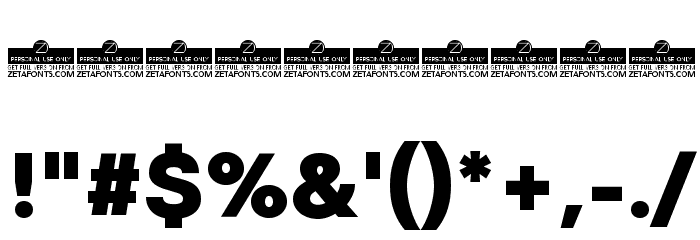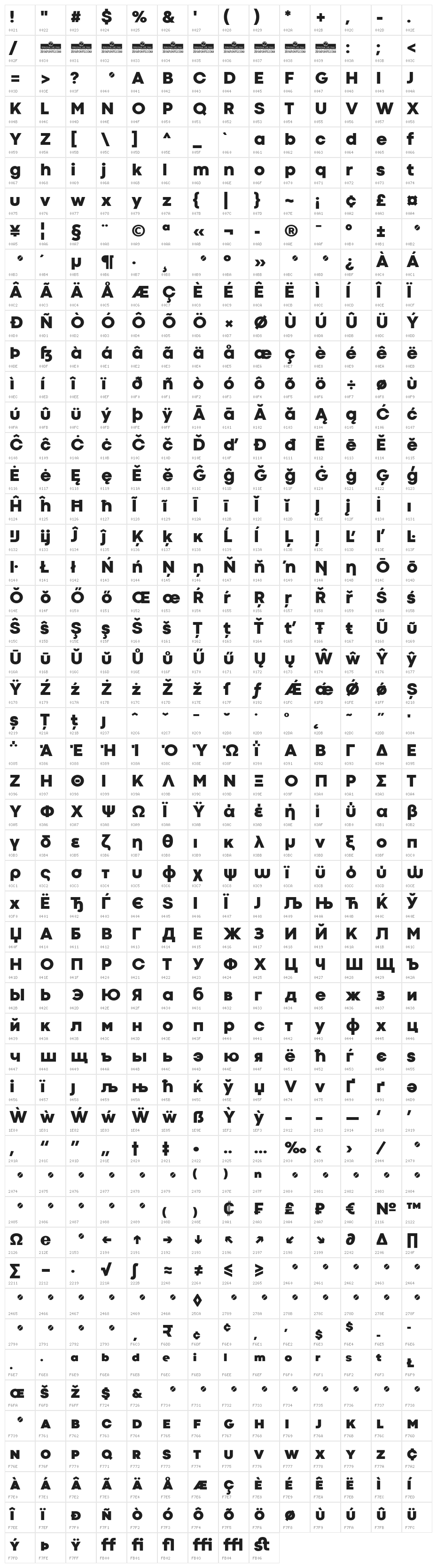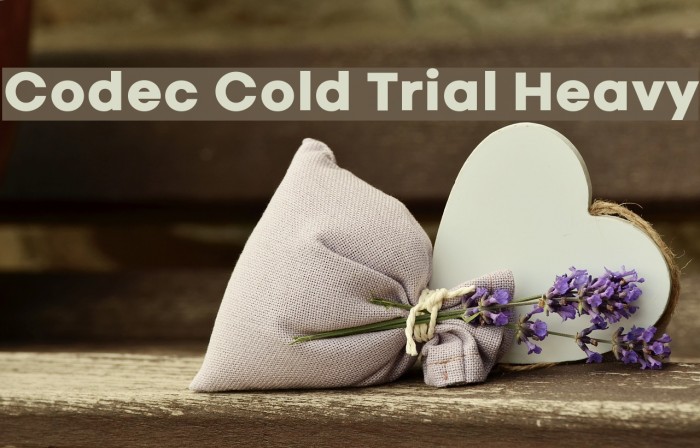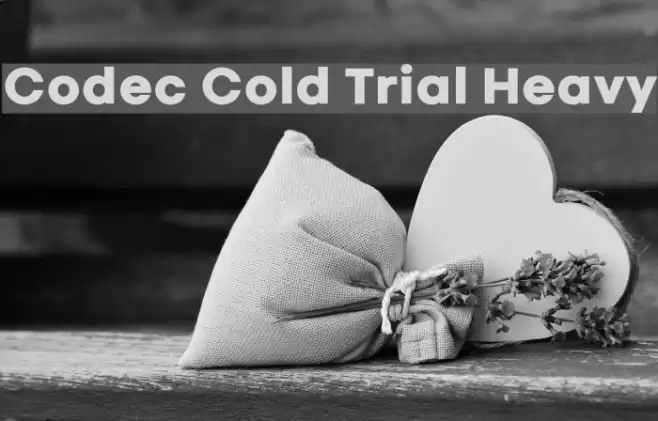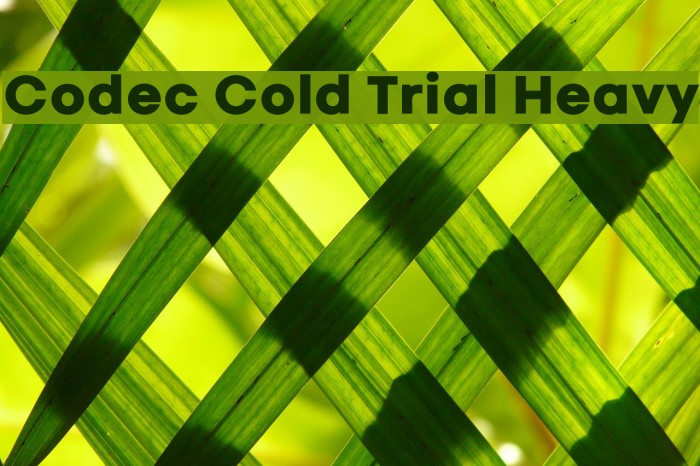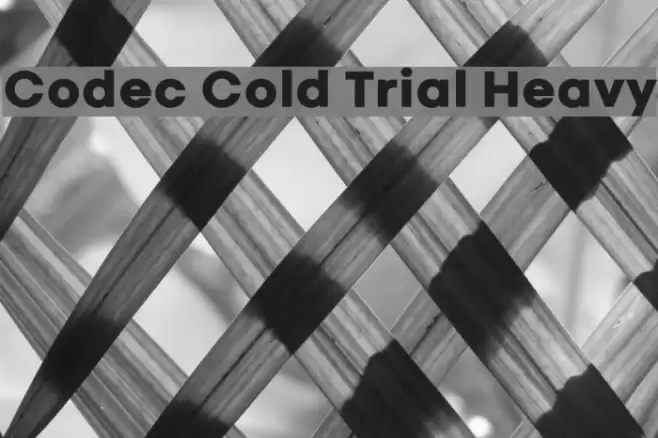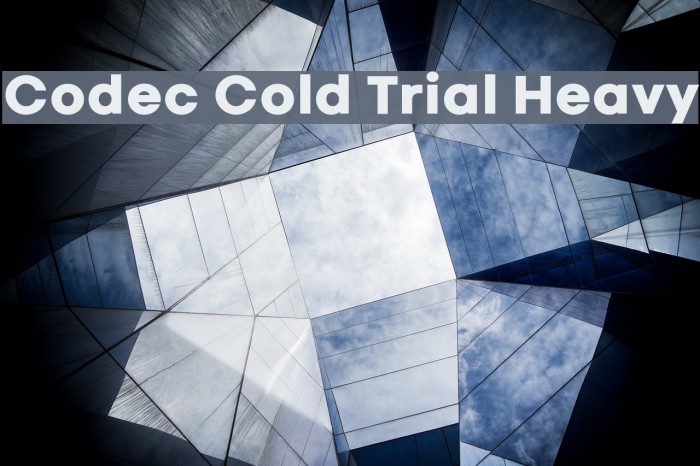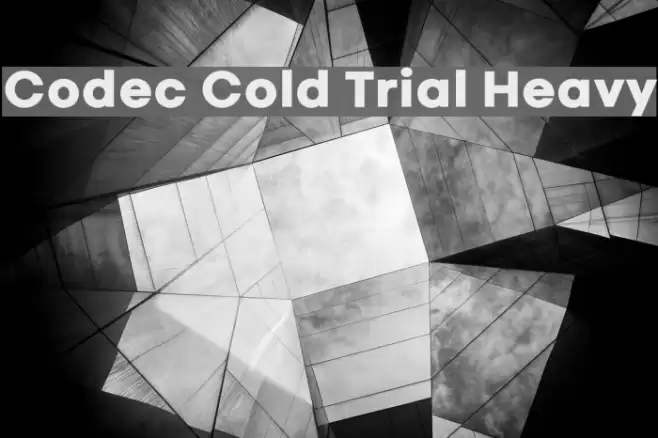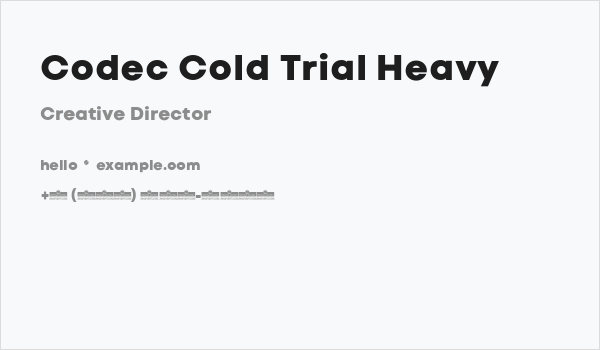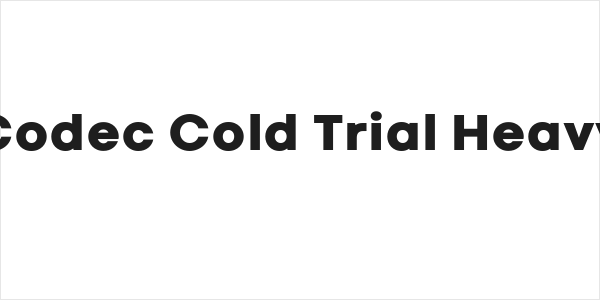
Codec Cold Trial Heavy Font
Codec Cold Trial Heavy Description
This font features bold, geometric letterforms with a modern aesthetic. The characters are uniformly thick, providing a strong and impactful appearance. The uppercase and lowercase letters maintain a consistent style, with rounded edges that soften the overall look. The numerals and special characters complement the alphabet with similar weight and structure, ensuring a cohesive design. The font's clean lines and lack of serifs make it highly legible, suitable for various design applications. Its boldness and simplicity lend it well to contemporary and minimalist projects.